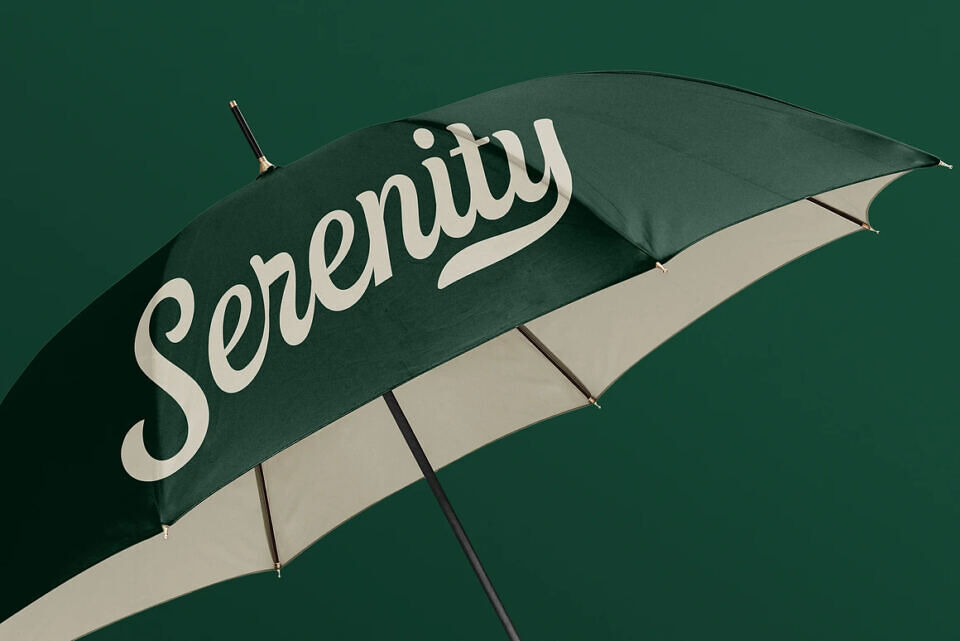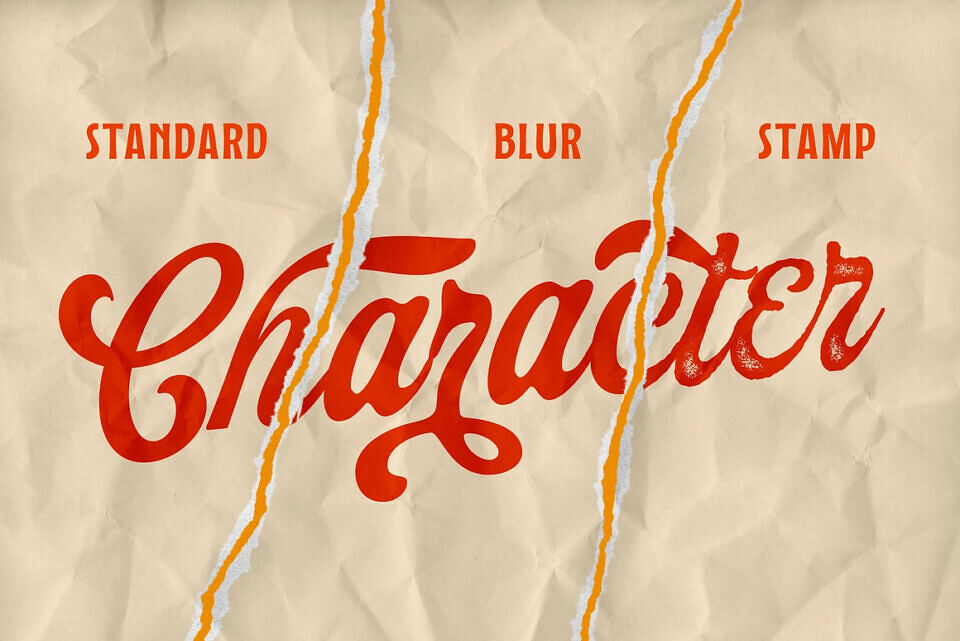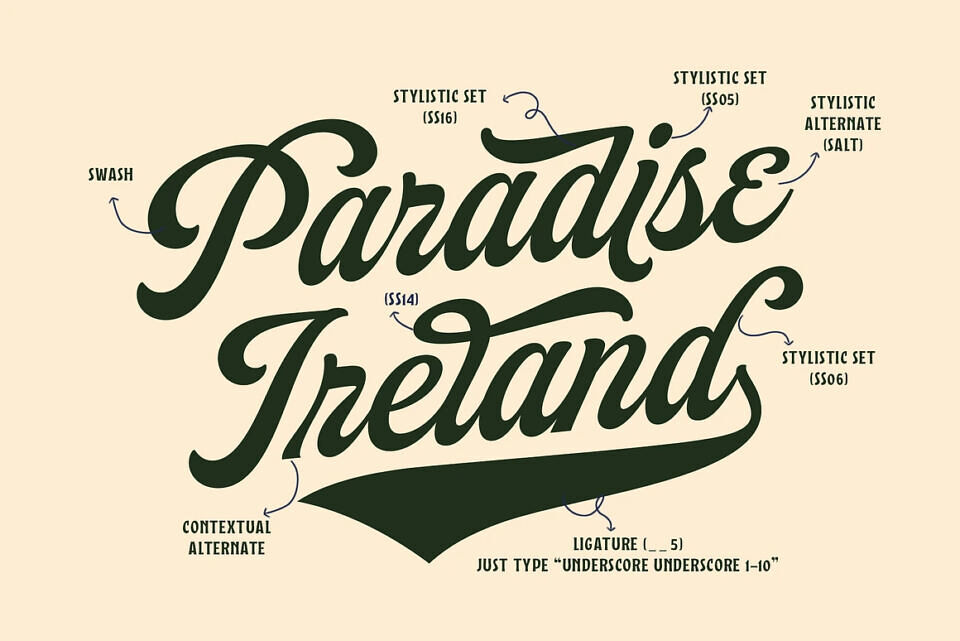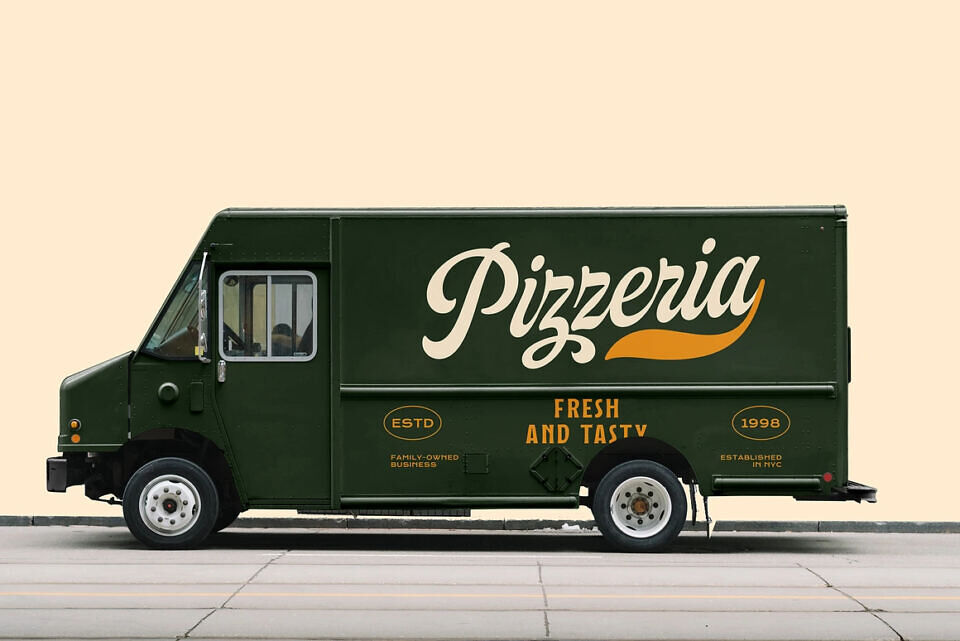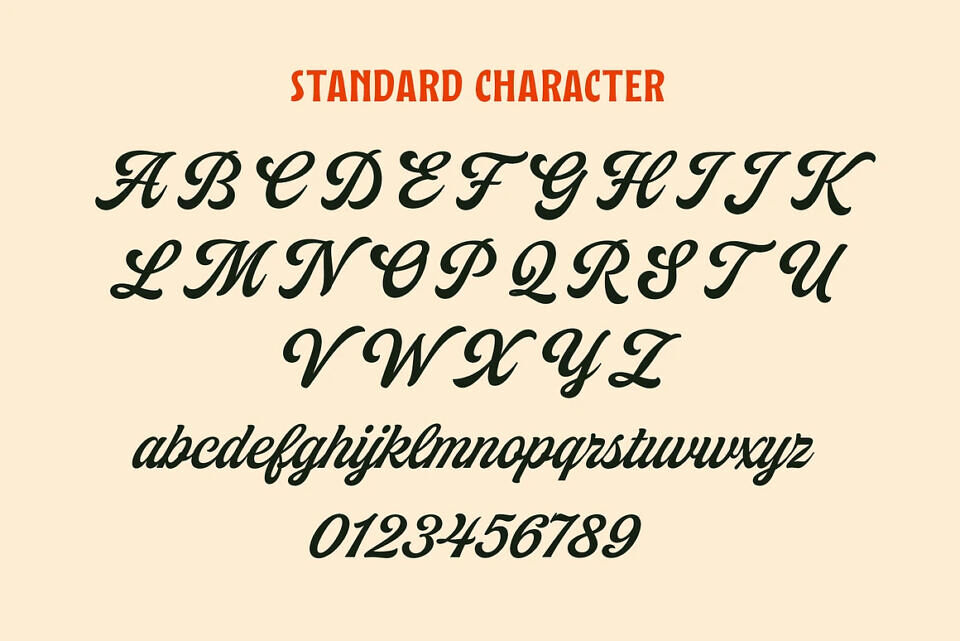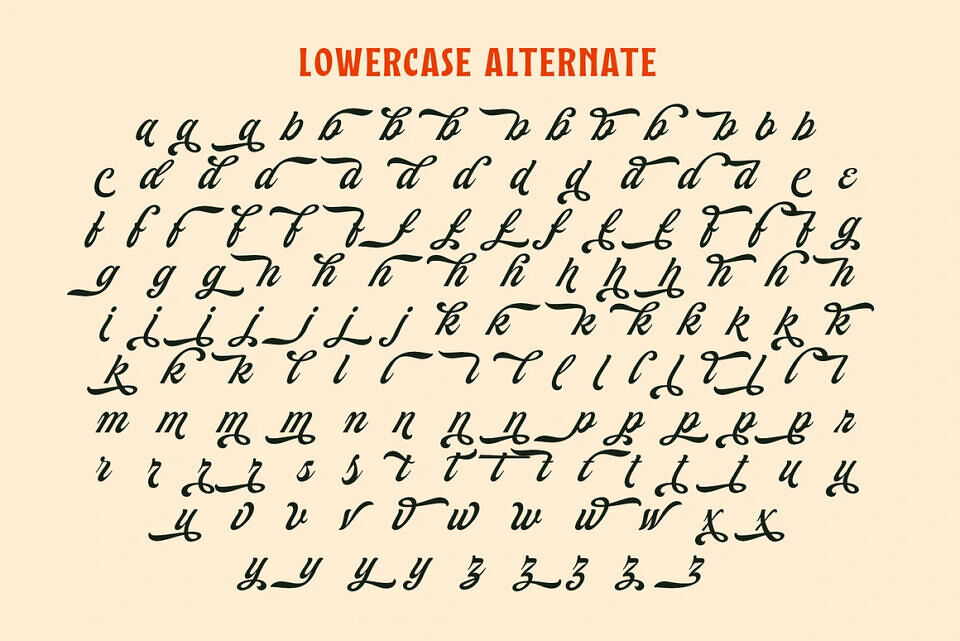
Taldose Script Font
Taldose is a stunning script font that blends classic elegance with a modern touch, designed to enhance any creative project. This font comes in four versatile styles: Clean, Blur, Stamp, and Extrude, offering a range of options to suit various design needs.
The Clean style delivers smooth, polished characters perfect for sleek and professional designs, while the Blur and Stamp styles add texture and depth for a more handcrafted, vintage feel. The Extrude style, with its bold and dimensional look, provides a striking presence ideal for impactful headlines and logos.